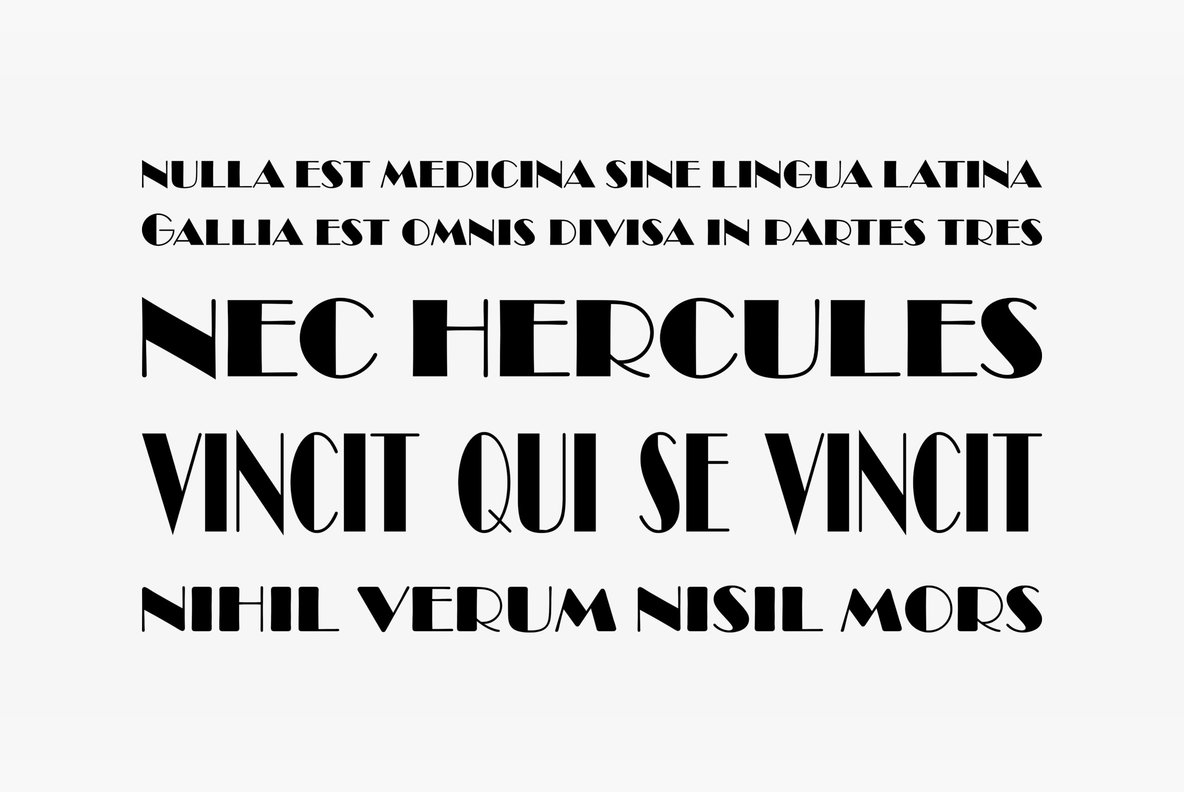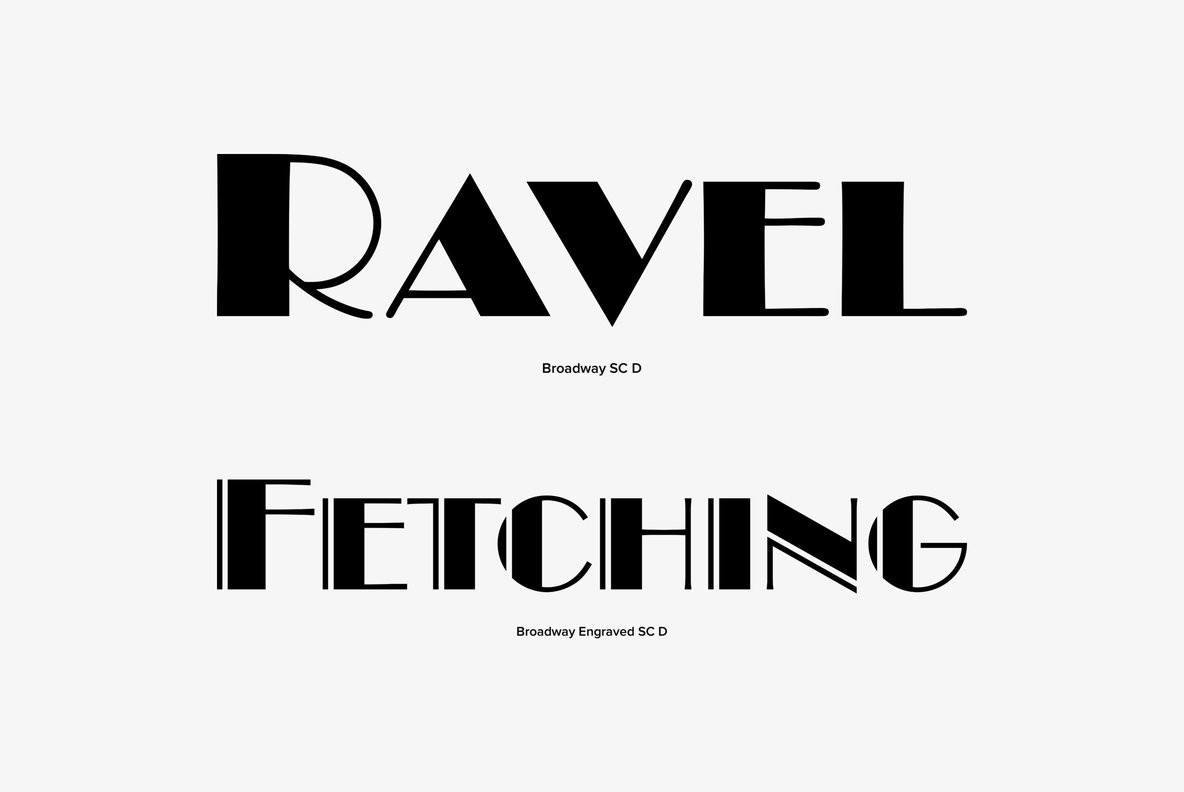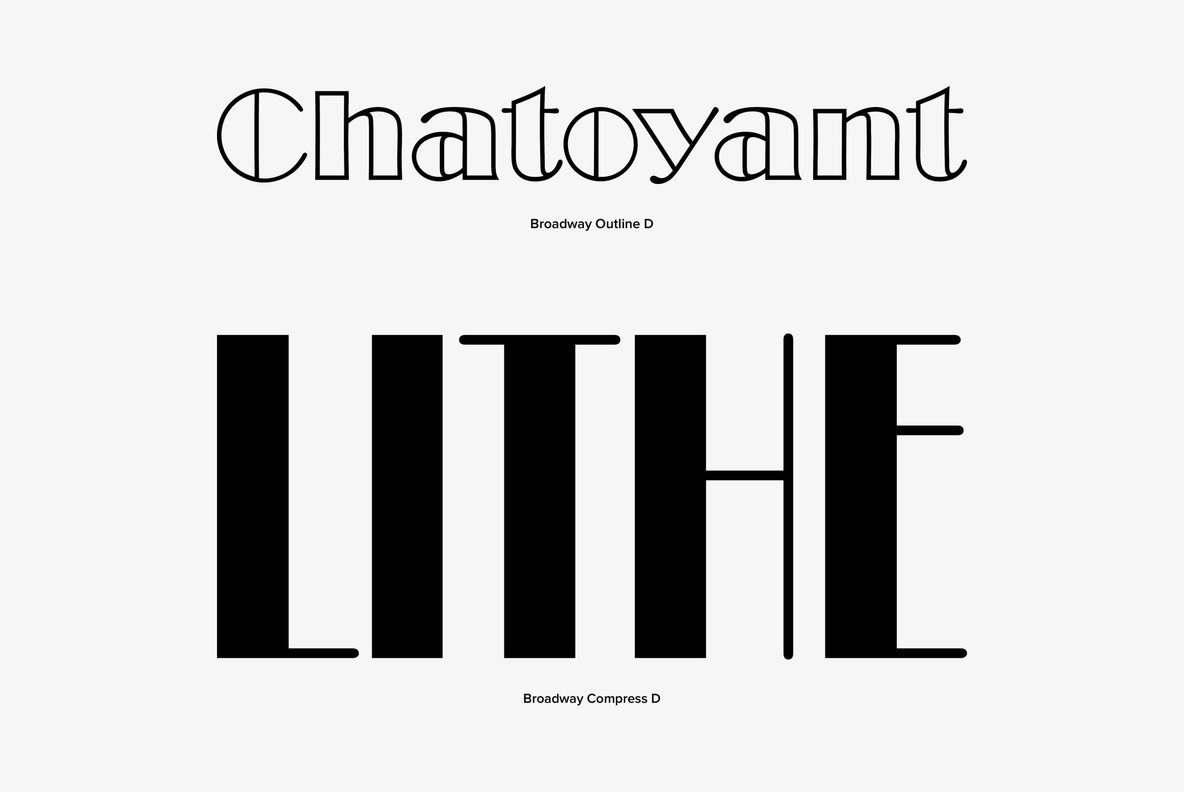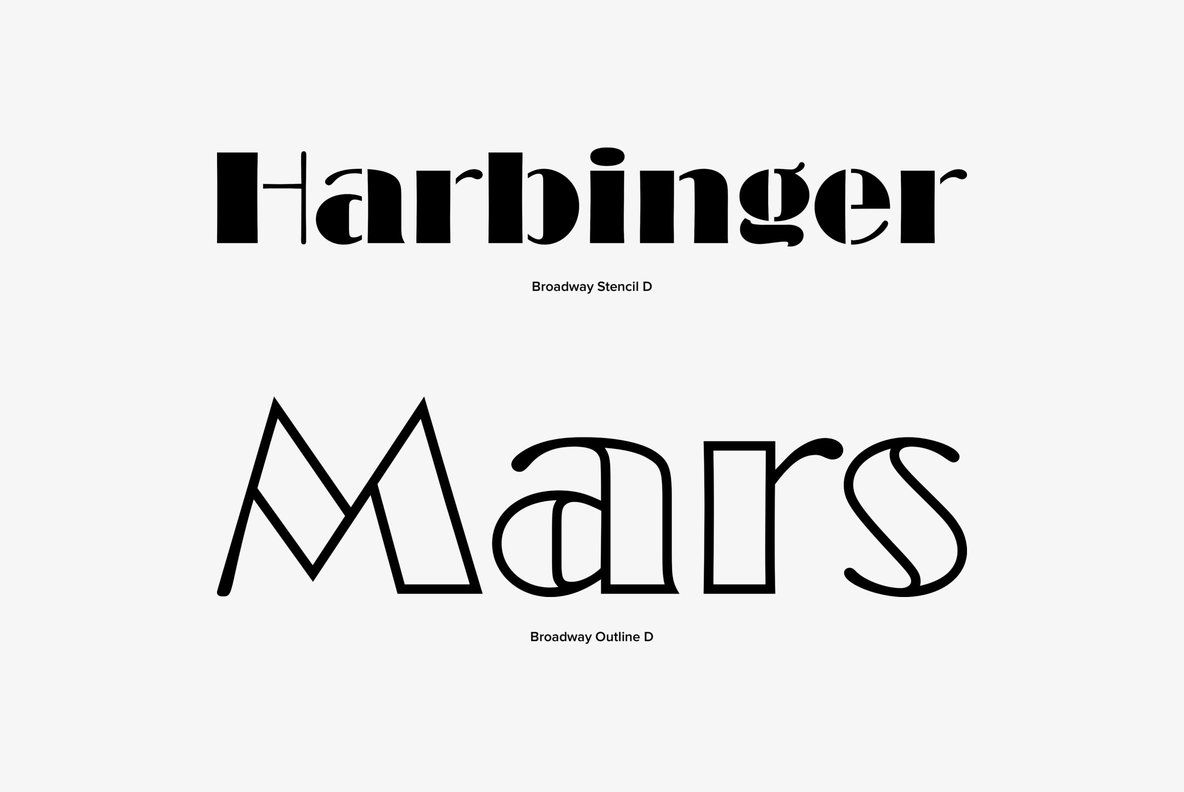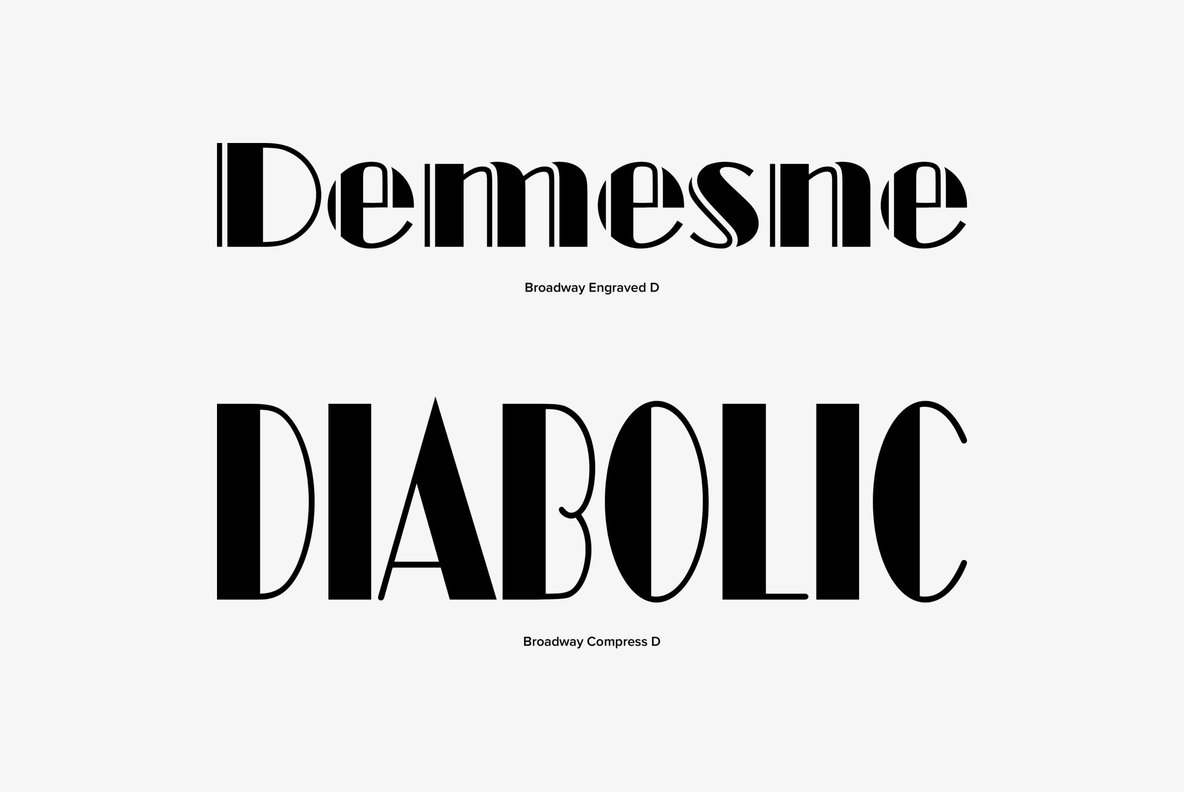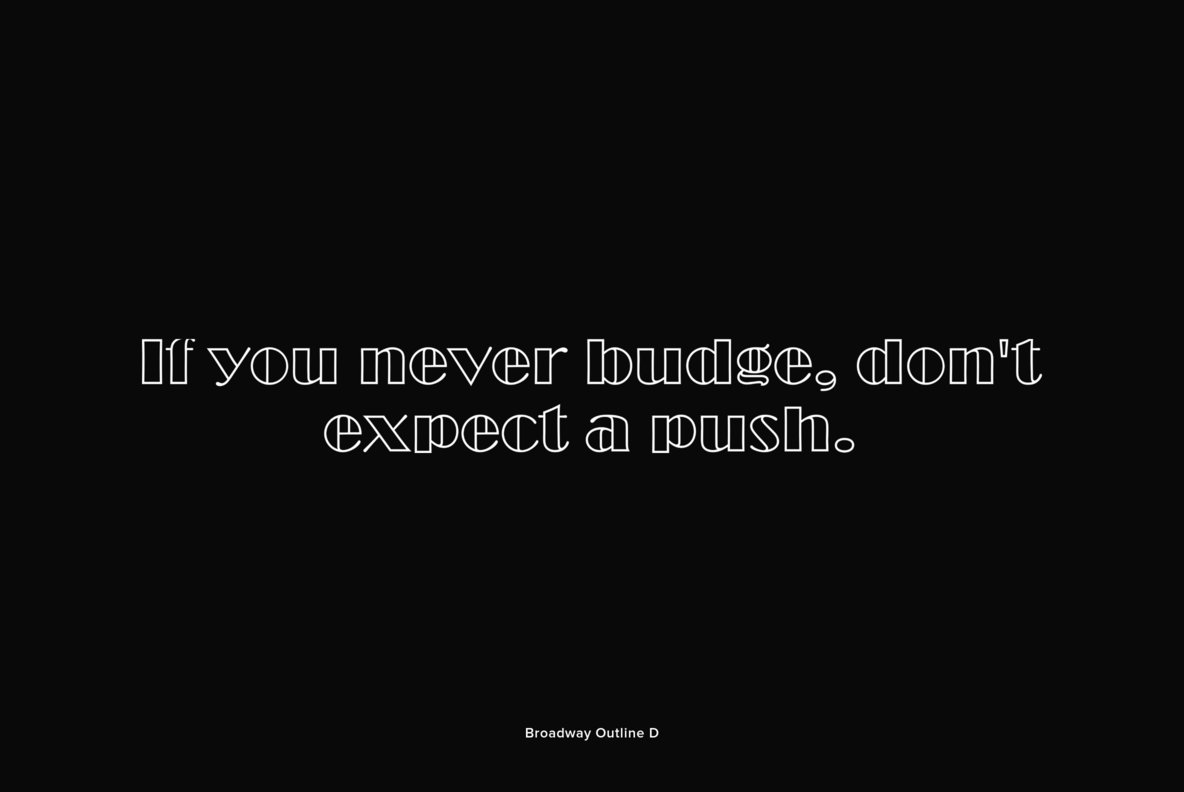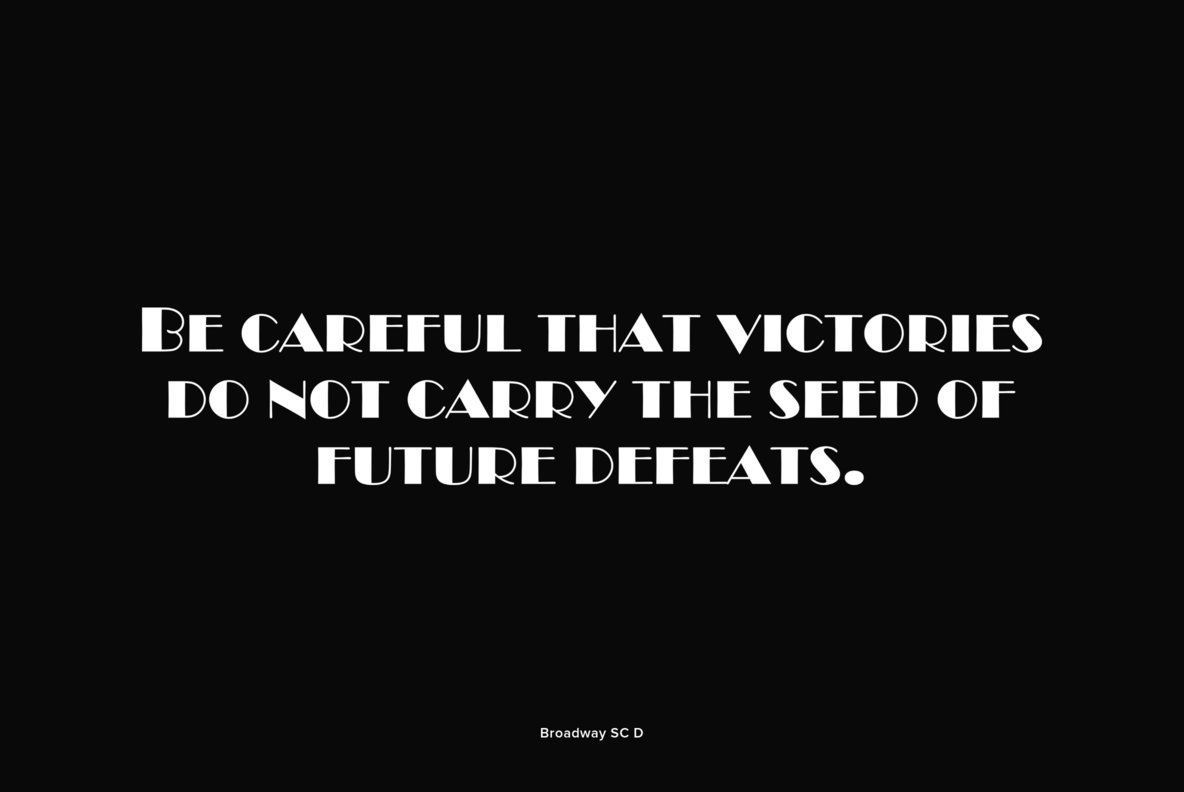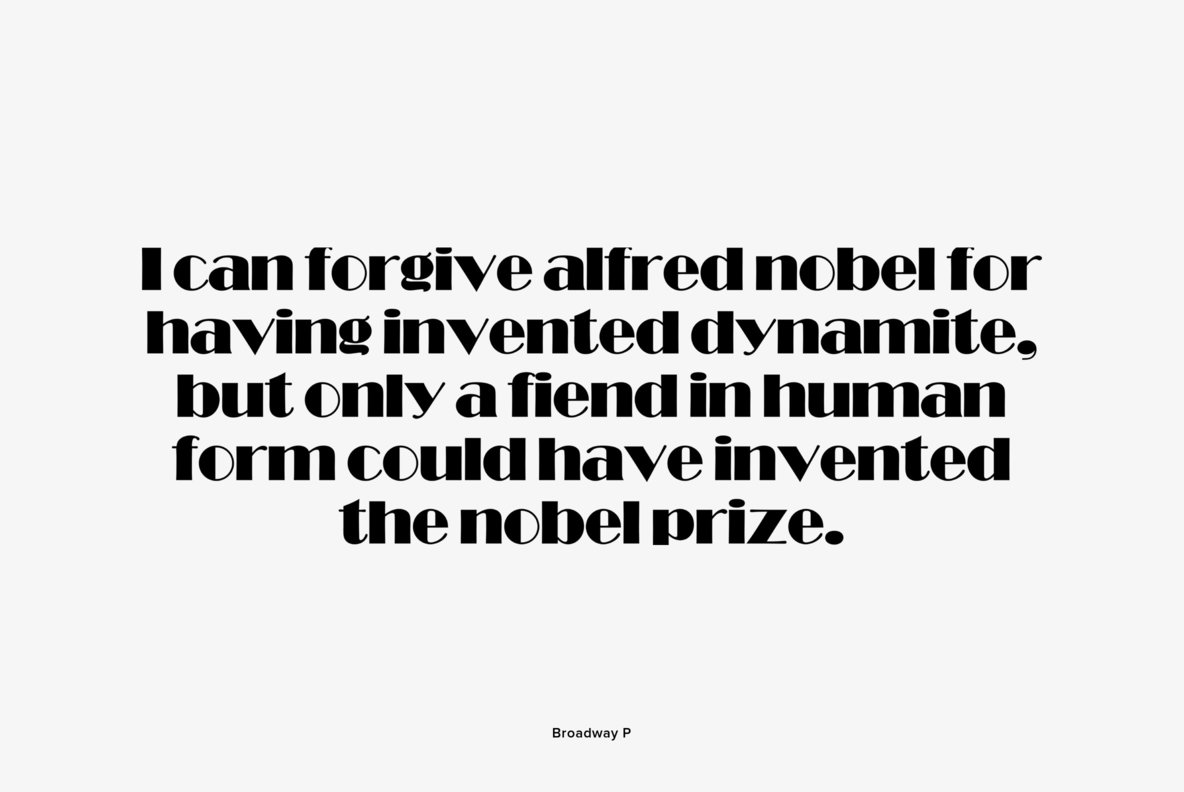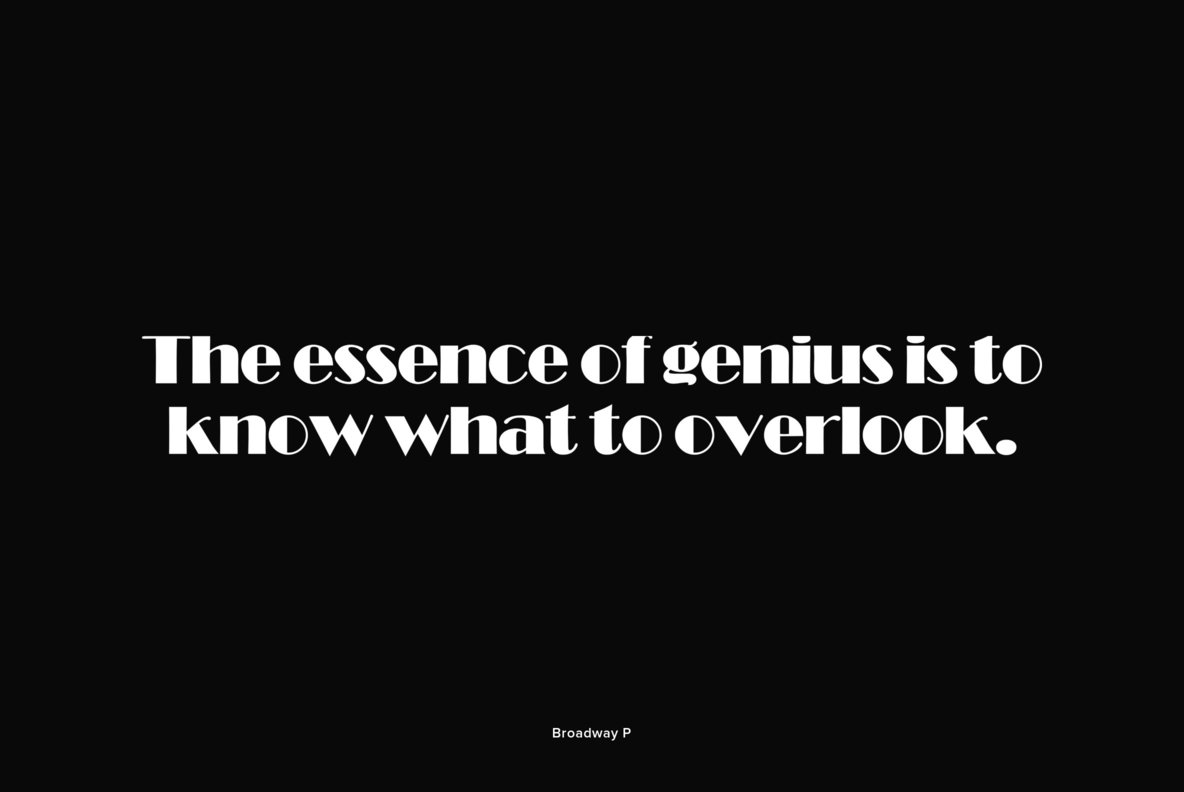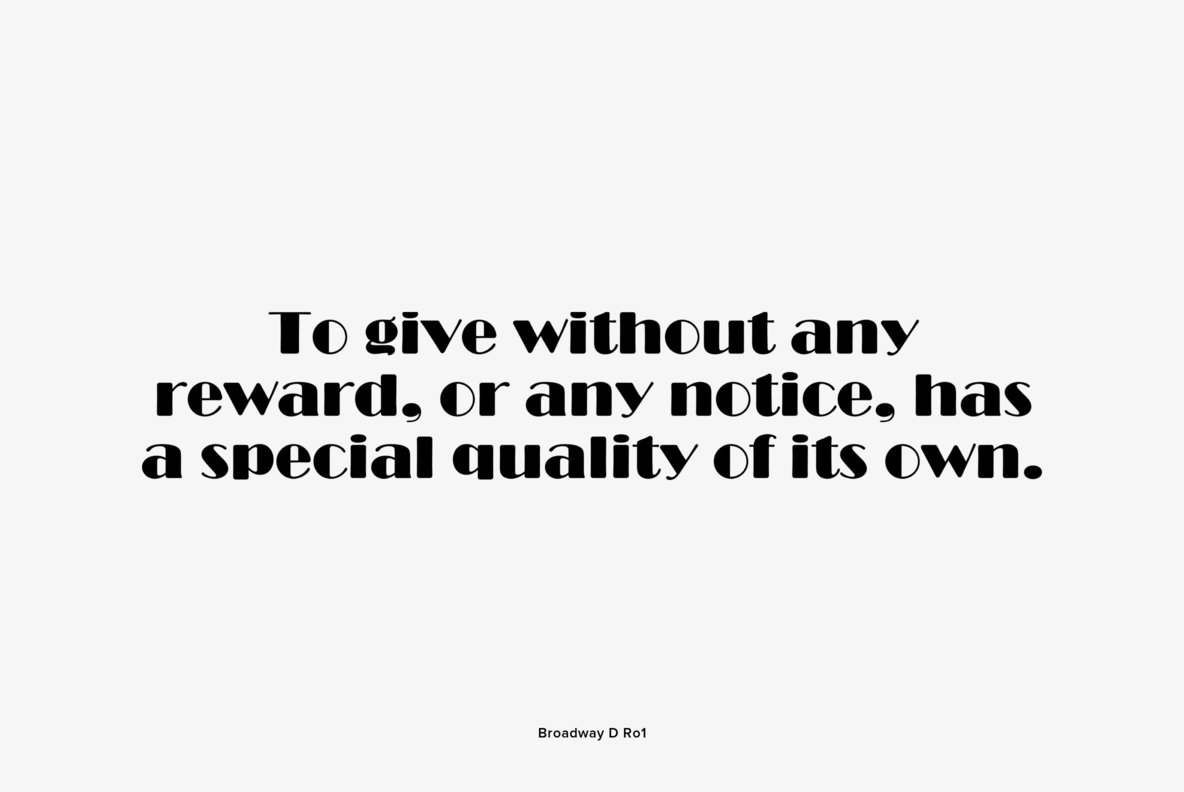
Broadway
Designed by Morris Fuller Benton in 1928, Broadway is an art deco styled font release by URW. Contains language support for West, East, Turkish, Baltic, and Romanian.